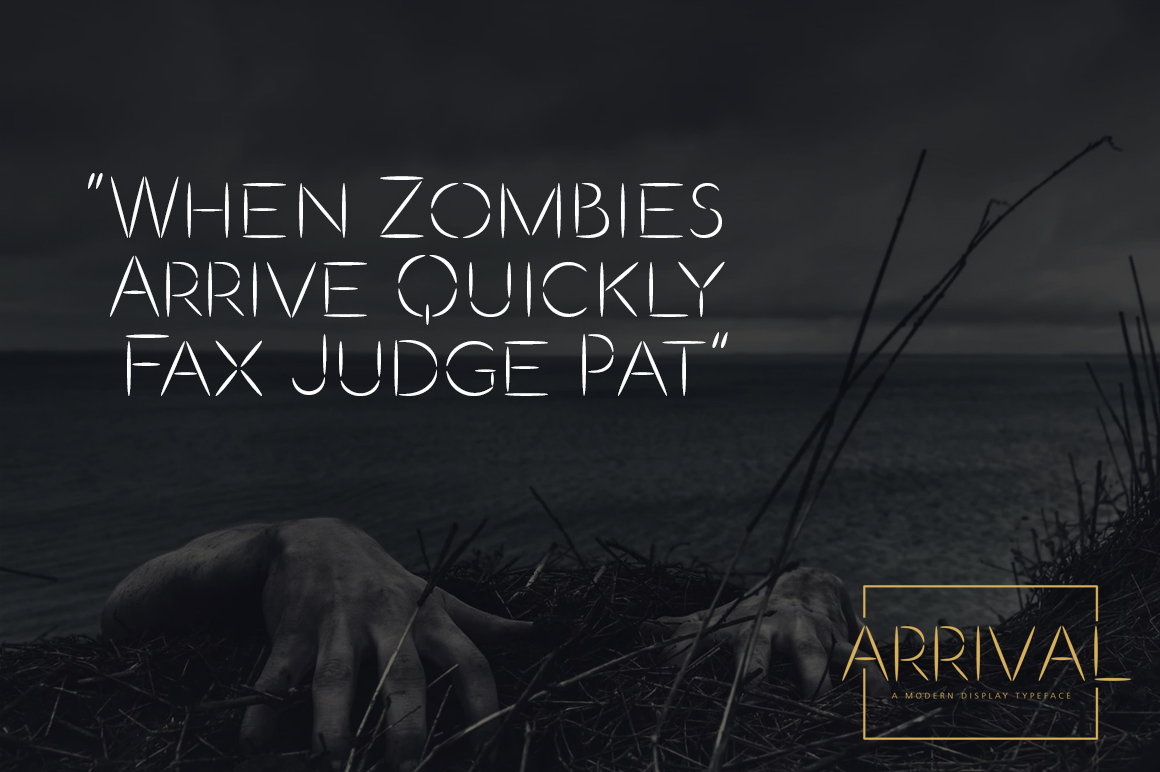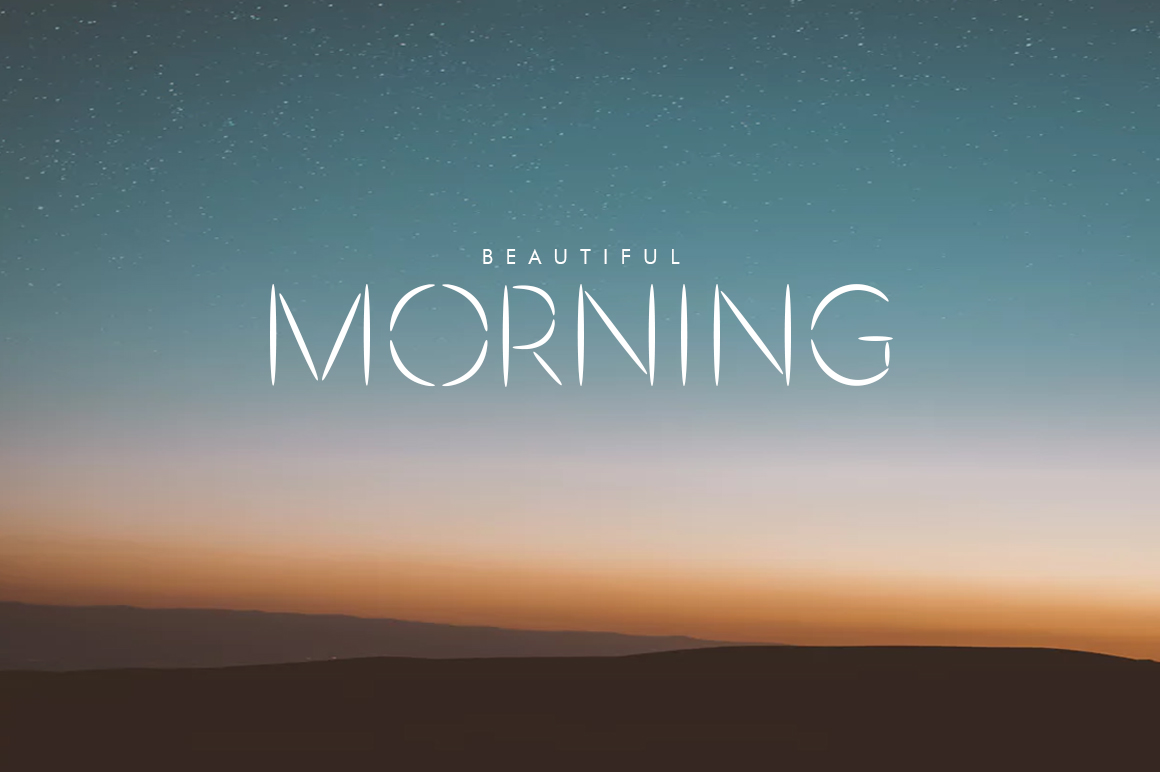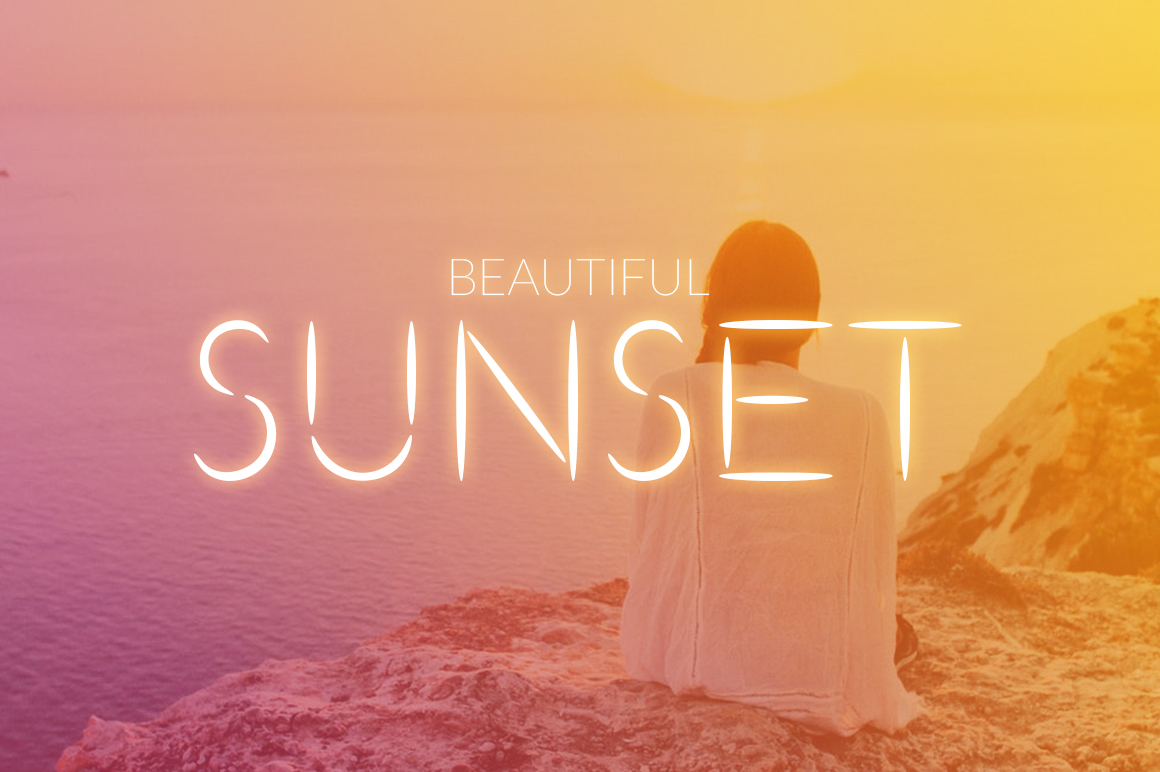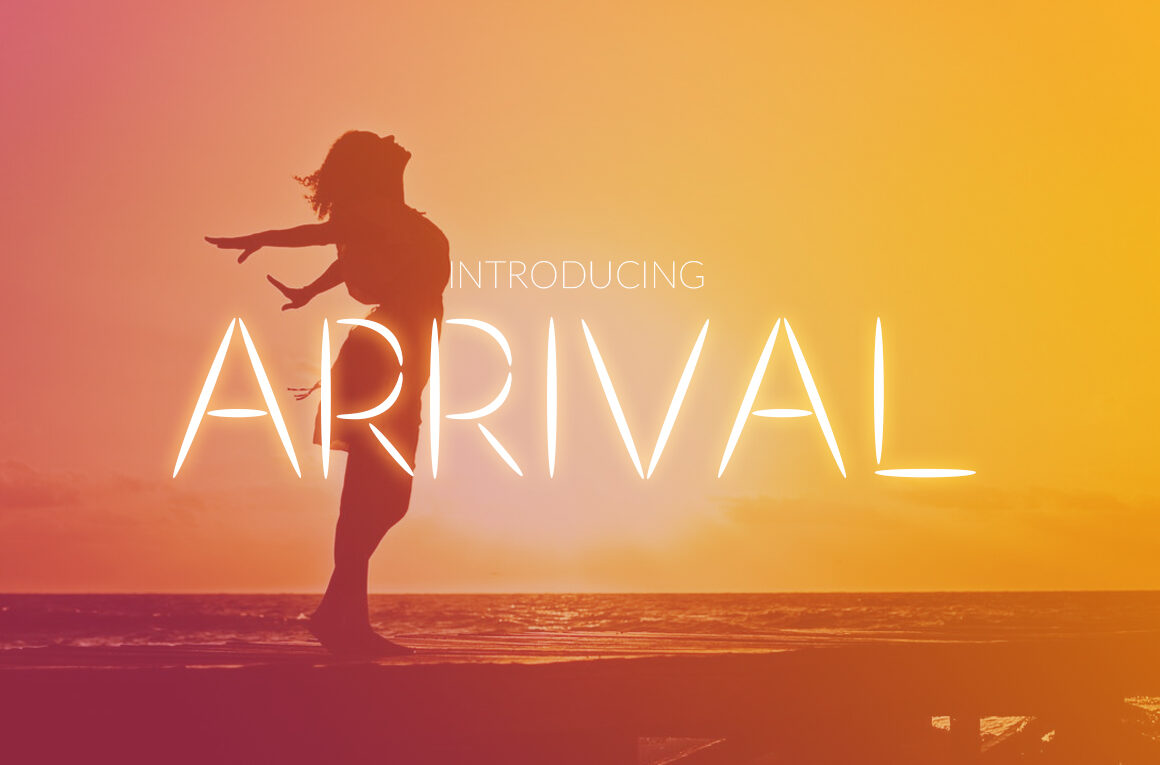
Introducing Arrival Sans Font: The Perfect Choice for Relaxed Designs
Are you tired of using the same old fonts in your designs? Look no further than Arrival Sans Font, a fun and casual sans serif font that’s perfect for creating relaxed and carefree designs. With its unique detached points and beveled line weight, Arrival Sans Font is sure to add a touch of personality to any project.
What is Arrival Sans Font?
Arrival Sans Font is a sans serif font, which means it doesn’t have the small lines or flourishes that are typically found at the ends of letters in serif fonts. Instead, Arrival Sans Font features clean lines and a modern aesthetic that’s perfect for designs that need to feel fresh and youthful.
One of the standout features of Arrival Sans Font is its detached points. Unlike traditional sans serif fonts, which often have points that are connected to the rest of the letter, Arrival Sans Font features points that are separate and distinct. This gives the font a playful, hand-drawn feel that’s perfect for designs that need to feel approachable and friendly.
Another key feature of Arrival Sans Font is its beveled line weight. This means that the lines that make up the letters in the font are slightly angled and rounded, giving the font a soft and relaxed feel. This is in contrast to traditional sans serif fonts, which often have sharp, angular lines that can feel cold and impersonal.
What Kind of Designs is Arrival Sans Font Suitable For?
Arrival Sans Font is a versatile font that can be used in a wide range of designs. Its casual and carefree vibe makes it perfect for projects that need to feel relaxed and approachable, such as:
• Branding and logos for lifestyle or fashion brands
• Signage and wayfinding systems for outdoor or recreational spaces
• Packaging and labeling for food or craft products
• Websites and blogs that focus on lifestyle, travel, or entertainment
Arrival Sans Font is also a great choice for designers and crafters who want to add a personal touch to their work. Its playful, hand-drawn feel makes it perfect for projects that need to feel handmade or bespoke, such as:
• Handmade crafts or DIY projects
• Artisanal or small-batch product labels
• Personal stationery or greeting cards
• Custom illustrations or graphics
Arrival Sans Font is a fun and versatile font that’s perfect for designers and crafters who want to add a touch of personality to their work. Its unique detached points and beveled line weight make it a standout choice for relaxed and carefree designs. Whether you’re working on a branding project, a website, or a handmade craft, Arrival Sans Font is sure to be a great choice.